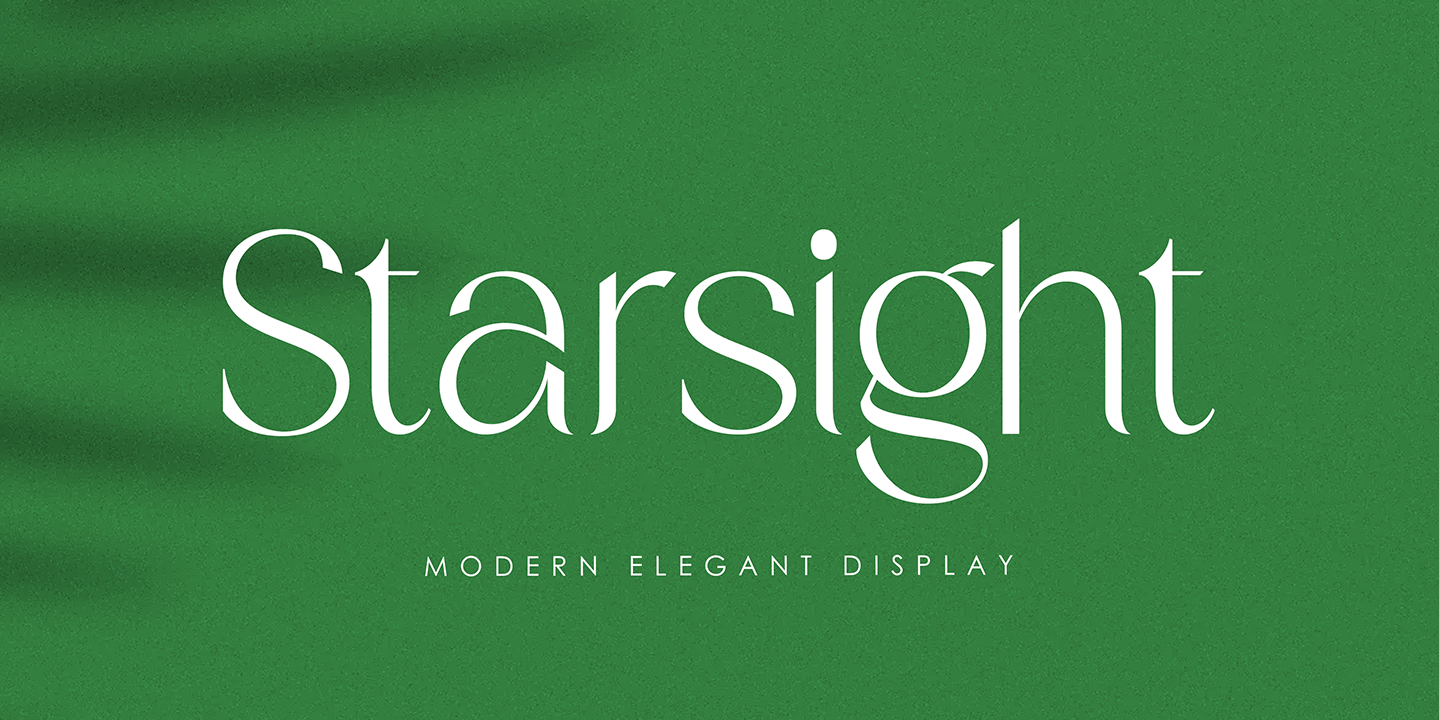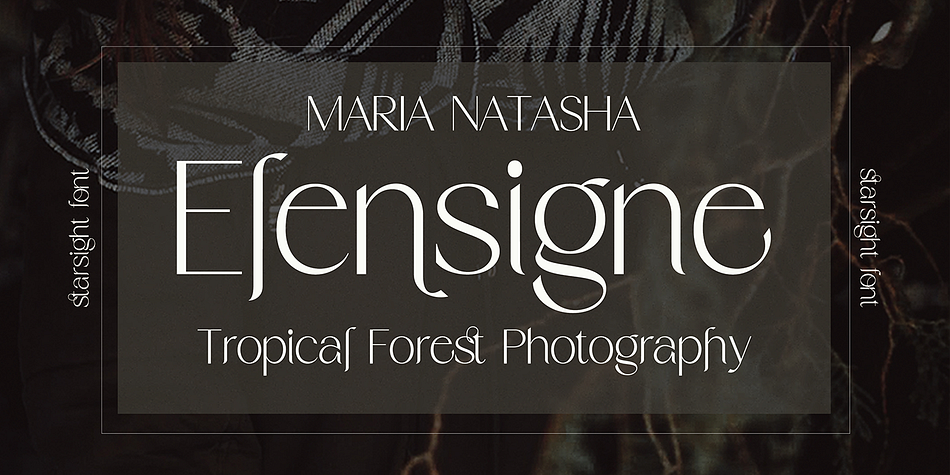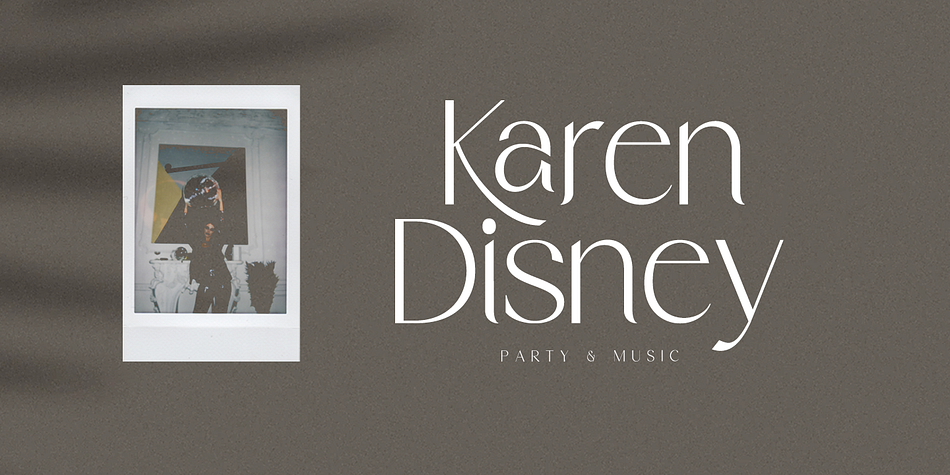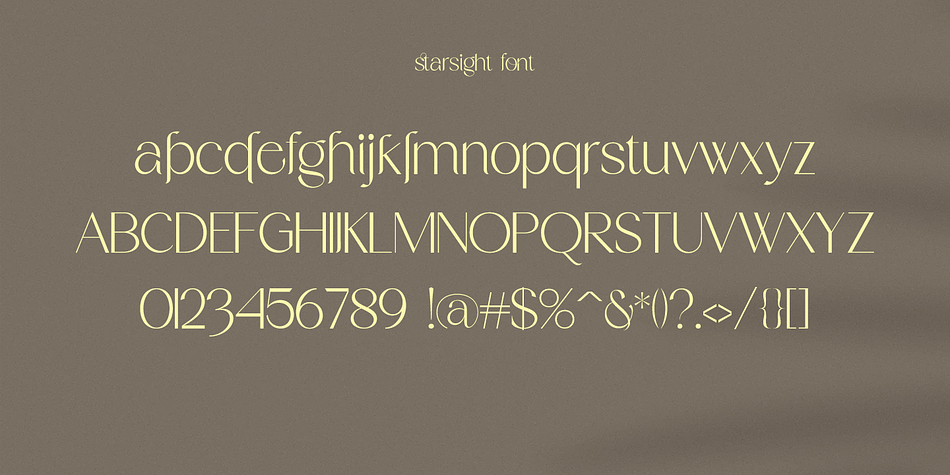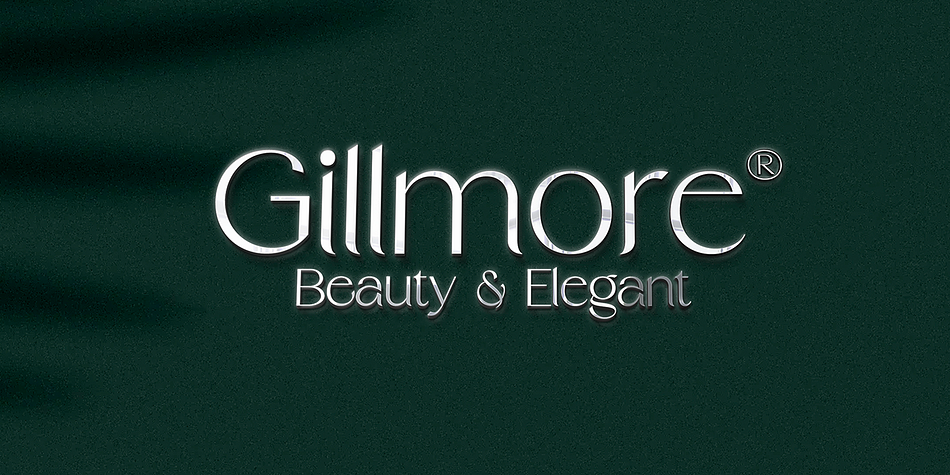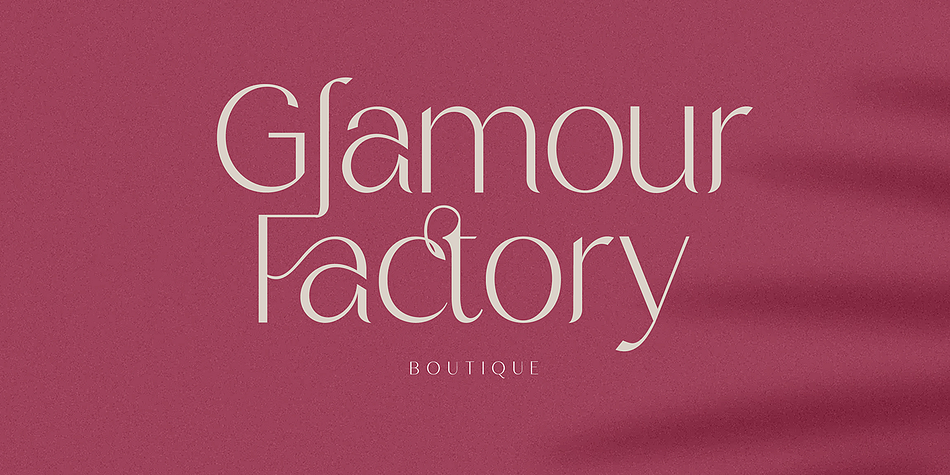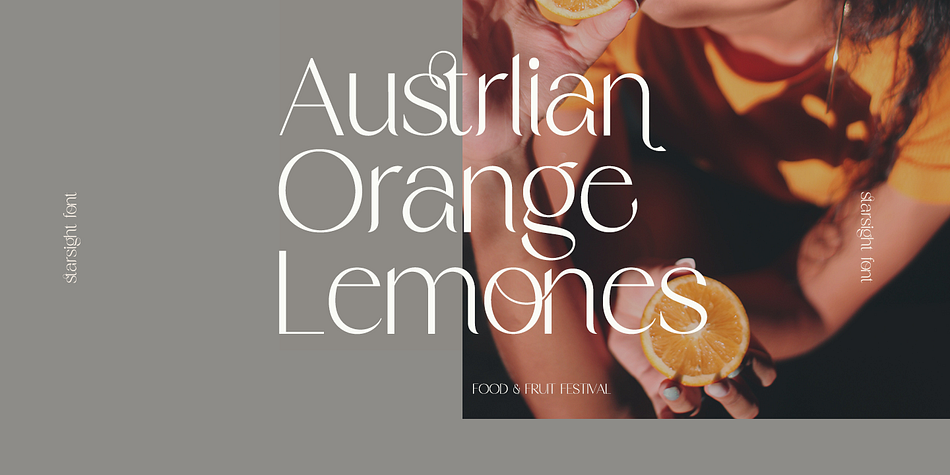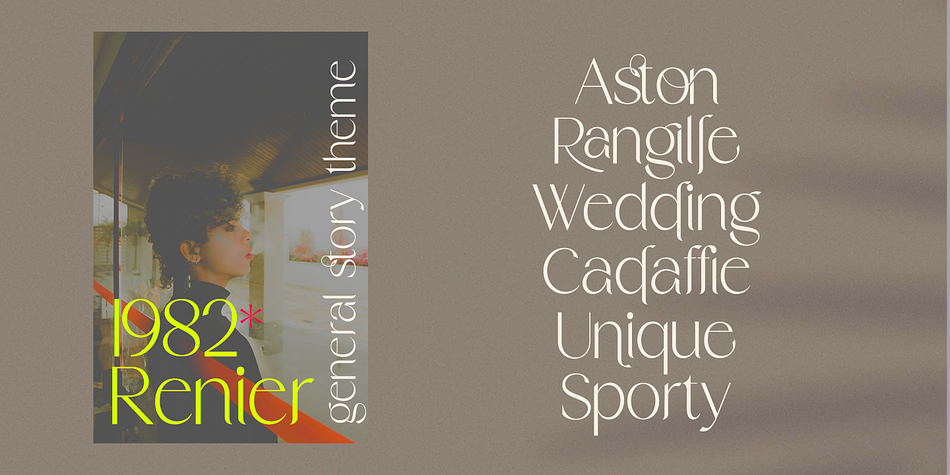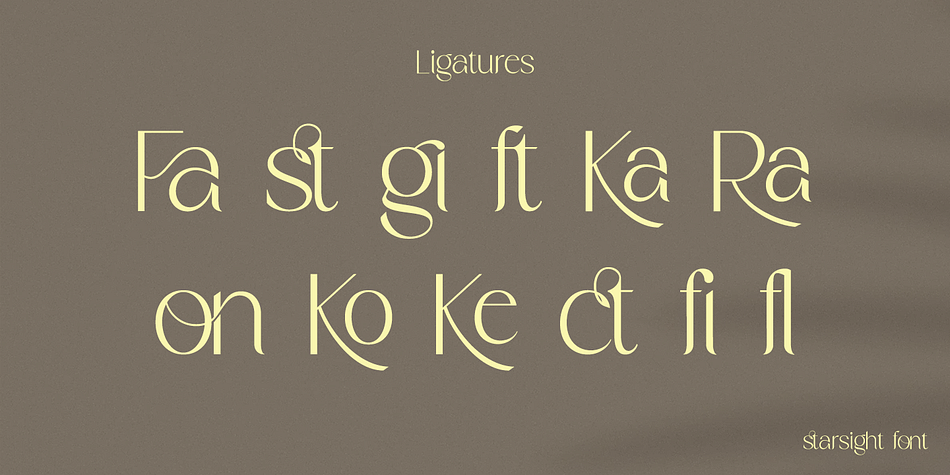
Starsight
Starsight is a display sans font family published by Gatype.
Starsight is a modern multilingual elegant display font enhanced with ligatures, alternations, and strokes. Starsight is a very versatile font character - with its seamless shapes and modern features it will cover a wide range of design projects from greeting cards to magazines, wedding invitations, websites, etc. The number of alternatives is incredible, from simple style alternatives to sweeps, ligatures and alternatives.